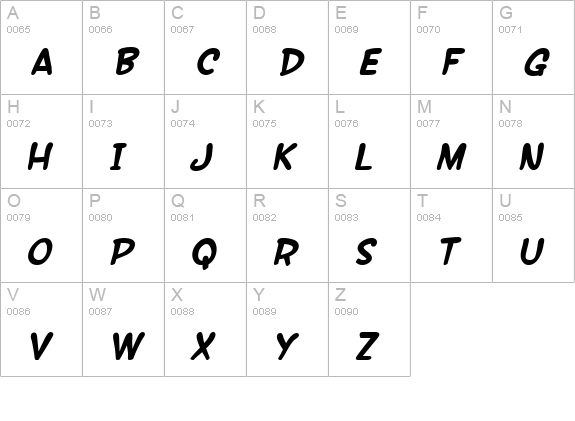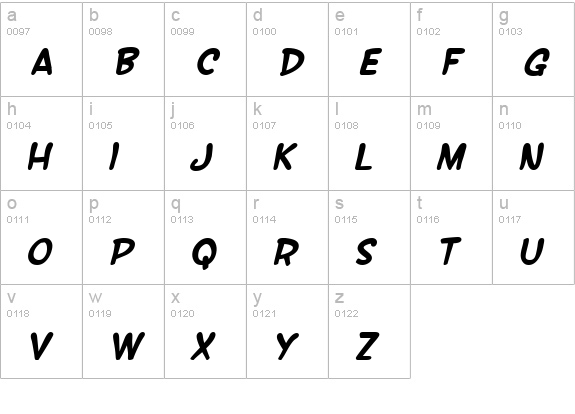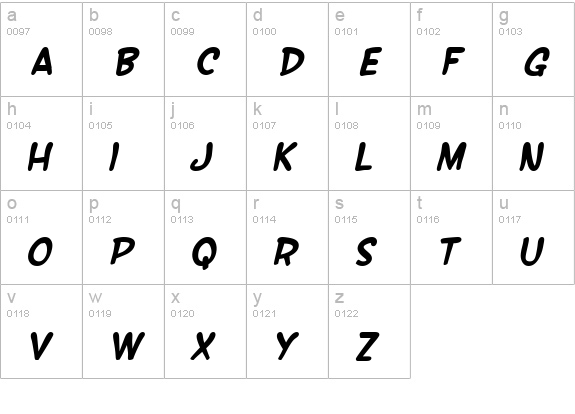
SF Wonder Comic Bold Italic Font Details
SF Wonder Comic Bold Italic is a strong, high-contrast, italic variant in the SF typeface family \xE2\x80\x94 well suited to headlines, attention-grabbing titles, and strong calls-to-action.
Introducing SF Wonder Comic Bold Italic, a captivating and dynamic font that brings your designs to life with its bold and italicized presence. This font is the perfect blend of modernity and playfulness, making it ideal for projects that require a touch of whimsy and adventure. With its unique characters, SF Wonder Comic Bold Italic adds a touch of personality to any design. Whether you're creating comic books, graphic novels, posters, or even social media graphics, this font will instantly capture attention and draw readers into your narrative. But what sets SF Wonder Comic Bold Italic apart is not just its stunning design, but also its availability as a free download at FontsMarket.com. Yes, you read that right – this extraordinary font can be yours, completely free of charge. FontsMarket.com offers a wide range of fonts for designers, and SF Wonder Comic Bold Italic is just one of the many gems waiting to be discovered. So why wait? Unlock your creativity and let SF Wonder Comic Bold Italic be the superhero of your design projects. Download it freely from FontsMarket.com and infuse your work with a sense of adventure and excitement. Whether you're a professional designer or a hobbyist, this font is sure to become an invaluable tool in your creative arsenal. Don't miss out on this opportunity to make your designs truly extraordinary.